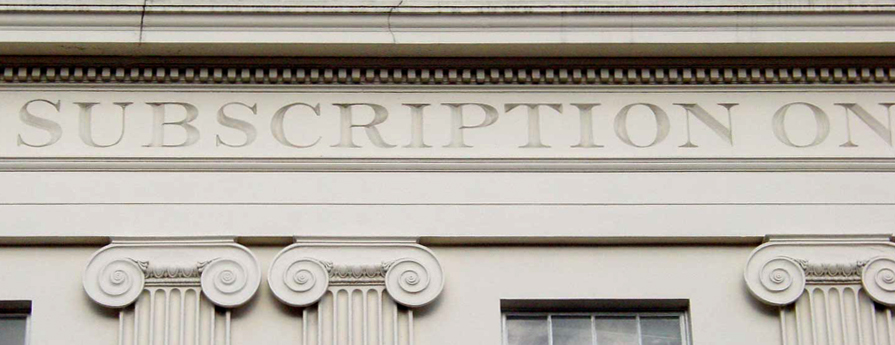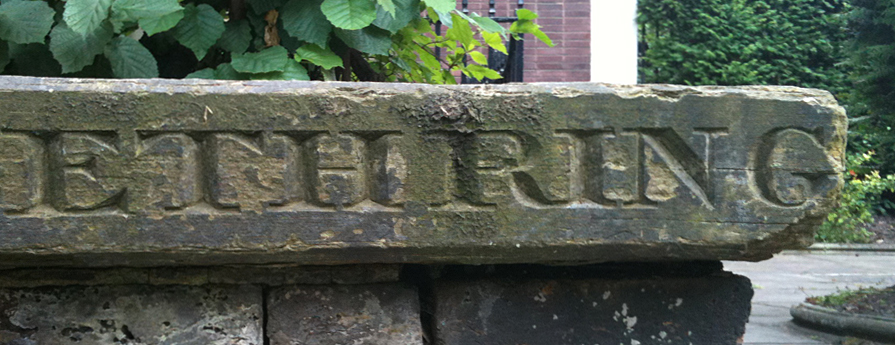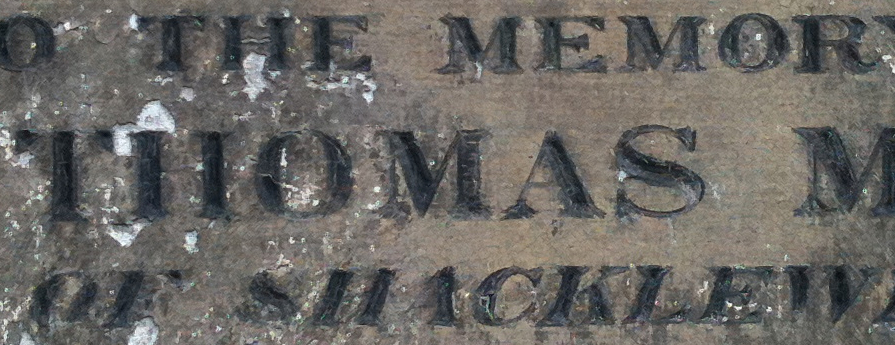
Monday is an example of a vernacular English serif typeface commonly found on historical buildings in the city of London. This elegant serif font was originally created in 2003 for the Arnolfini Gallery’s exhibition, ‘Apparition: the Action of Appearing’.
| Font name: | Monday |
| Font category: | Serif/Slab |
| Styles: | Light Light Italic Regular Italic Medium Medium Italic Semibold Italic Bold Bold Italic Black Black Italic |
| Script: | Latin |
| Manufacturer: | A2-TYPE |
| Designer: | Henrik Kubel |
| Year: |
2015 |